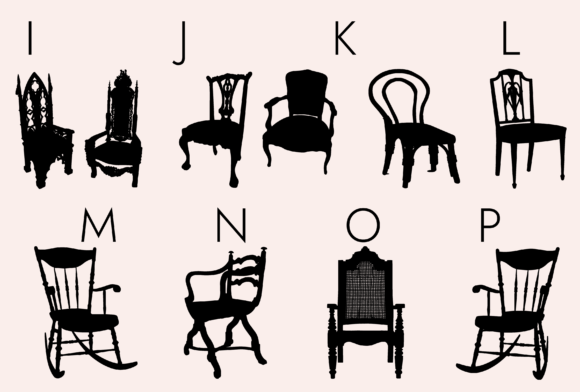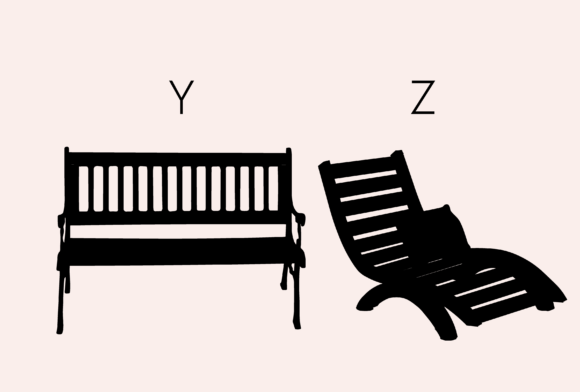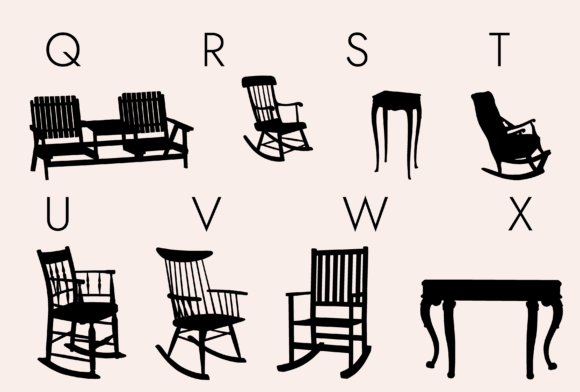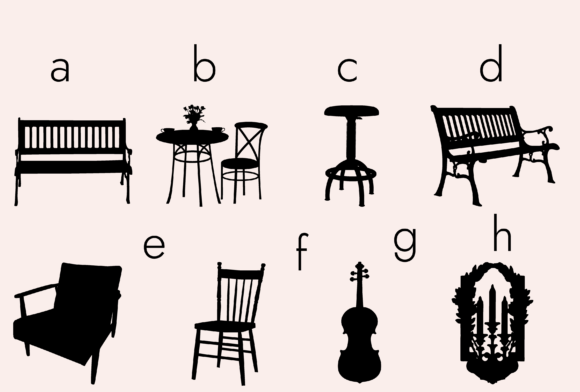
Furniture Font
About Furniture Font
“Furniture Dingbats” is a versatile and practical font that provides you with a wide range of furniture-related icons and symbols. With this font, you have the freedom to explore various design possibilities and create stunning visuals for your projects.
The “Furniture Dingbats” font is designed to offer a comprehensive collection of furniture icons, including chairs, tables, sofas, beds, cabinets, shelves, and more. Each symbol is meticulously crafted to represent the unique characteristics and shapes of different furniture pieces. By simply typing the corresponding letters or characters associated with each furniture item, you can easily generate detailed and recognizable icons.
This dingbats font is particularly useful for interior designers, furniture manufacturers, architects, and anyone involved in the home decor industry. It provides a convenient way to incorporate furniture visuals into your designs, whether you’re working on brochures, catalogs, websites, or any other project related to furniture and interior design.
The versatility of the “Furniture Dingbats” font allows you to unleash your creativity and customize the generated icons according to your design needs. You can resize and scale the symbols, adjust colors and shading, combine multiple furniture icons to create unique arrangements, and even incorporate them into larger compositions or illustrations.
Whether you’re designing a furniture catalog, creating an interior design presentation, or developing a website for a furniture store, the “Furniture Dingbats” font offers you endless possibilities to enhance your designs. The icons provide a visual language that effectively communicates the essence of different furniture pieces, making it easier for your audience to understand and engage with your design concepts.
By using the “Furniture Dingbats” font, you can streamline your design process and save valuable time and effort. Instead of searching for or creating furniture icons from scratch, you can simply rely on this font to generate high-quality symbols that align with your design vision. This not only increases your productivity but also ensures consistency and professionalism throughout your projects.
In conclusion, “Furniture Dingbats” is a valuable and versatile font that empowers you to create captivating designs with ease. Its extensive collection of furniture icons opens up a world of possibilities for interior designers, furniture manufacturers, and anyone involved in the home decor industry. Let your imagination flow and use this font to bring your furniture-related projects to life, adding visual appeal and professionalism to your designs.